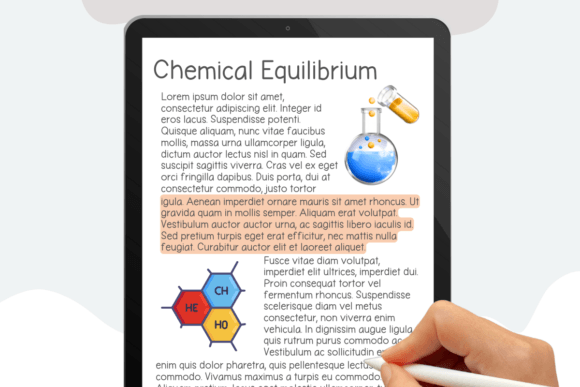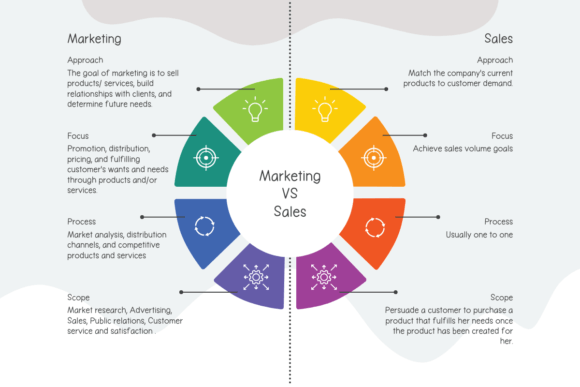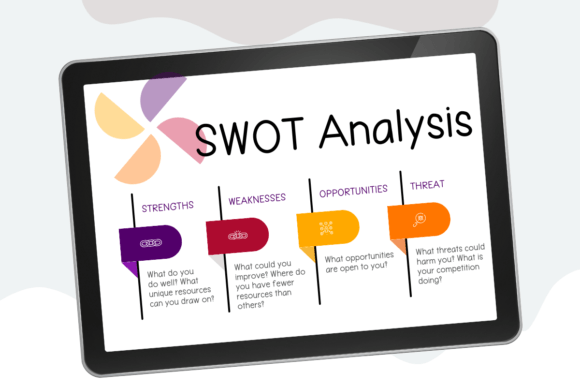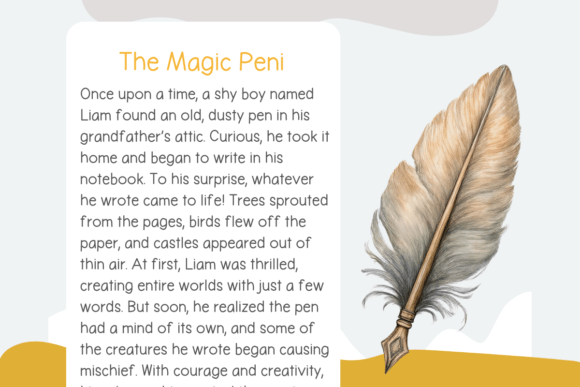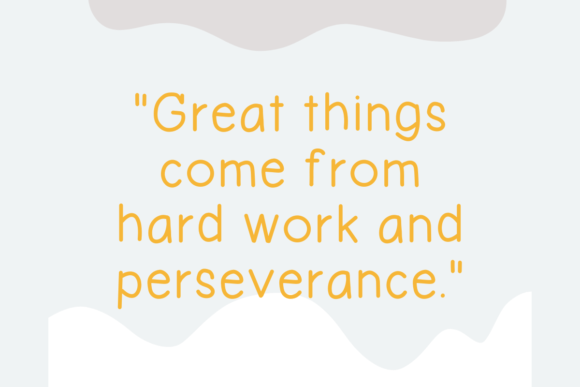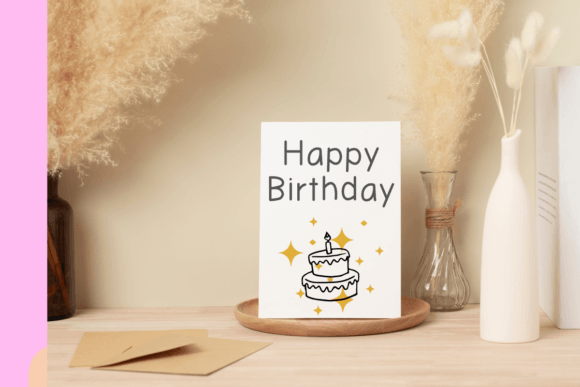
Introduction to Orderly Line Font
As a designer, I still remember the thrill of discovering the perfect font for a creative project. It’s that moment when everything clicks into place, and your vision starts to take shape. For me, that moment came when I stumbled upon the Orderly Line Font – a beautiful, handwritten font that’s been a game-changer for my digital note-taking and design work.
With its high-quality, transparent background, Orderly Line Font is the perfect design resource for any creative project. Whether you’re working on a Procreate design, a blog post, or even a logo, this versatile font is sure to elevate your work. And the best part? It’s available for free download, making it an invaluable addition to any designer’s toolkit.
Key Features of Orderly Line Font
- Transparent Background: The Orderly Line Font features a transparent background, making it easy to layer and blend with other design elements.
- High Quality Design: This font is designed to provide a high level of detail and precision, making it ideal for use in creative projects where quality matters.
- Perfect for Creative Projects: The Orderly Line Font is designed to add a touch of elegance and sophistication to any creative project, from graphic design to digital art.
- High Resolution: The font is available in high resolution, making it ideal for use in large-scale designs and prints.
Honest Review: Orderly Line Font
As a designer, I’ve had my fair share of fonts, but the Orderly Line Font has caught my attention. This font is a great addition to any design resource, and I’m excited to share my thoughts on it.
- High-quality design: The Orderly Line Font is crisp, clean, and has a modern feel to it.
- Transparent background: The font’s transparent background makes it versatile for use on various creative projects.
- Clean and simple: The font’s simplicity makes it perfect for use in logos, headings, and body text.
- ⚠️ Limited font styles: While the font is great for headings and body text, it’s not ideal for use in more complex typography.
- ⚠️ Not ideal for small text: The font’s simplicity can make it difficult to read in small text sizes.
Overall, I’m impressed with the Orderly Line Font. It’s a great addition to any design resource, and I’d recommend it to designers looking for a clean and modern font. While it has its limitations, it’s still a high-quality design resource that’s worth exploring.
Getting the Most Out of Orderly Line Font
For a high-quality design, use Orderly Line Font on a transparent background to create a clean and modern look.
Experiment with different font sizes and colors to find the perfect combination for your creative project.
Common Use Cases for Orderly Line Font
Orderly Line Font is perfect for:
– Designing logos and branding materials
– Creating infographics and data visualizations
– Developing website headers and footers
– Designing social media graphics and ads